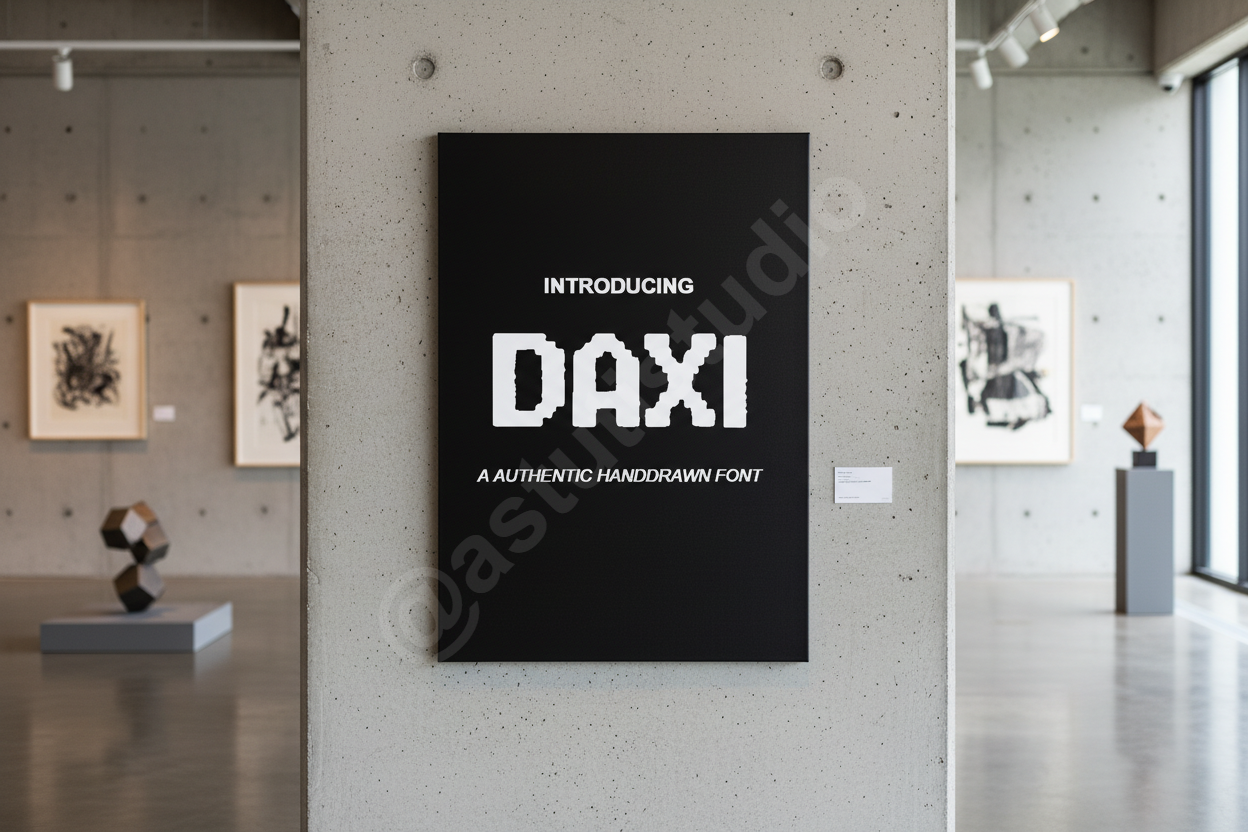
Daxi – Elegant Luxury Serif Font
Introduction: Introducing Daxi, an exquisite serif font meticulously crafted for designers who demand unparalleled elegance and sophistication. Daxi embodies the essence of luxury, making it the quintessential choice for high-end branding, captivating editorial layouts, and a distinguished social media presence. Its refined lines, graceful curves, and precise detailing are designed to elevate your projects, leaving a lasting impression of premium quality and timeless style. Perfect for designers looking to infuse their work with a touch of classic grandeur and modern allure.
- Sophisticated Serif Design: A harmonious blend of classic elegance and contemporary sharpness.
- Extensive Ligatures & Stylistic Alternates: Unlock creative versatility with beautiful character connections and unique letterforms.
- Multilingual Support: Seamlessly connect with a global audience through comprehensive language coverage.
- Optimized for Readability: Expertly balanced letterforms ensure clarity and impact across all sizes and mediums.
- Versatile Application: Ideal for headlines, logotypes, elegant body text, print, and digital media.